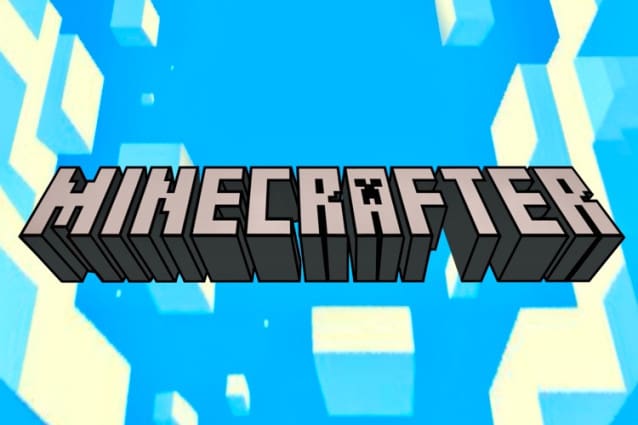
Minecrafter Display Font is a stunning display font with a retro bitmap look. This font is perfect for pixel art and 8bit games. It’s also good for any design project which requires that nostalgic vintage feeling.